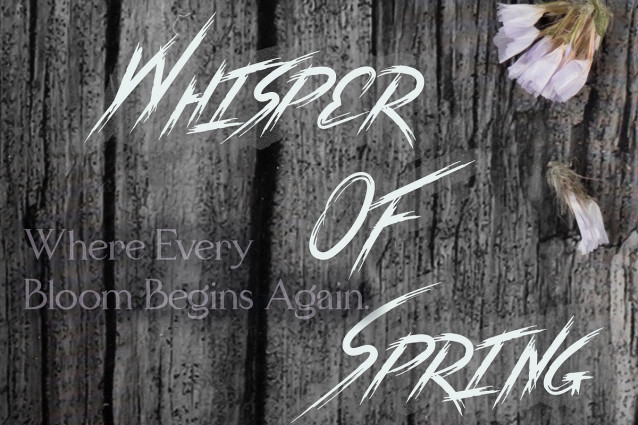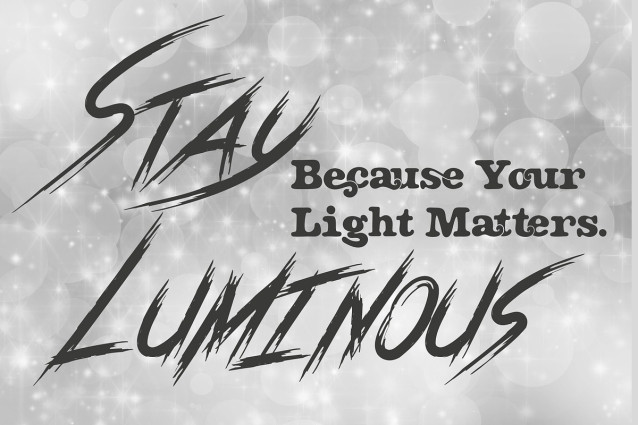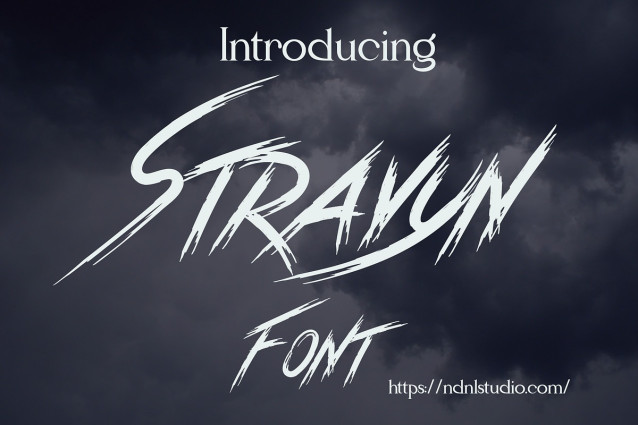
Stravyn Brush Font
Stravyn Brush Font is a wild and energetic brush font that captures the spirit of rebellion and motion. With its sharp strokes and raw texture, it brings intensity and attitude to your designs — perfect for posters, album covers, logos, and any creative work that demands bold expression.